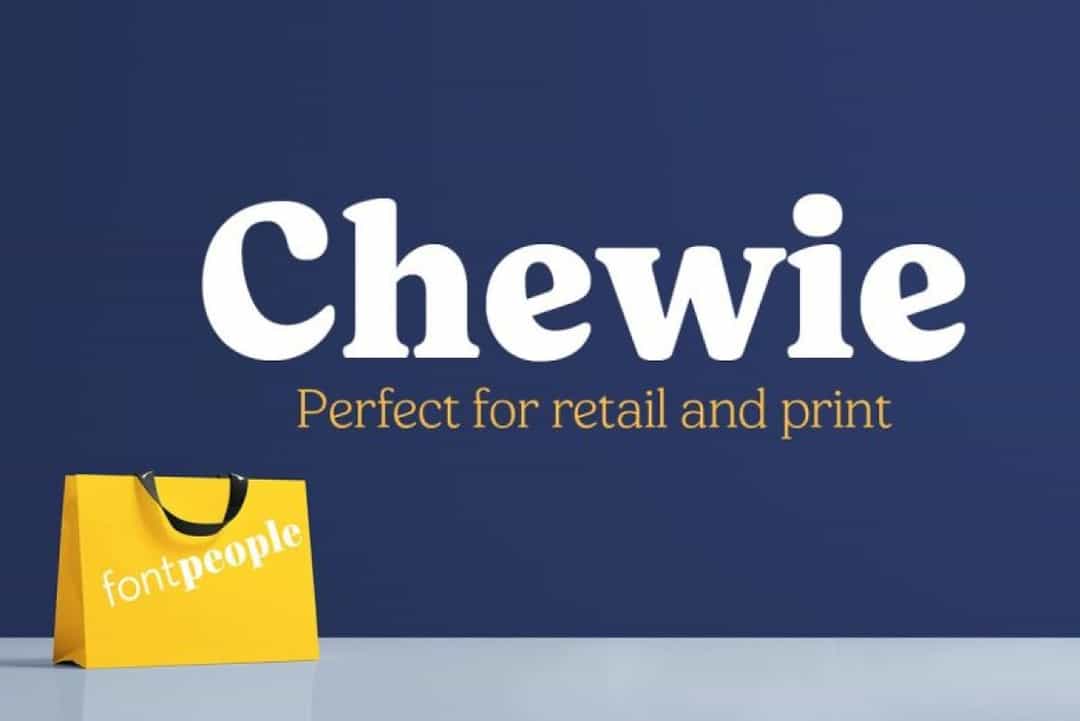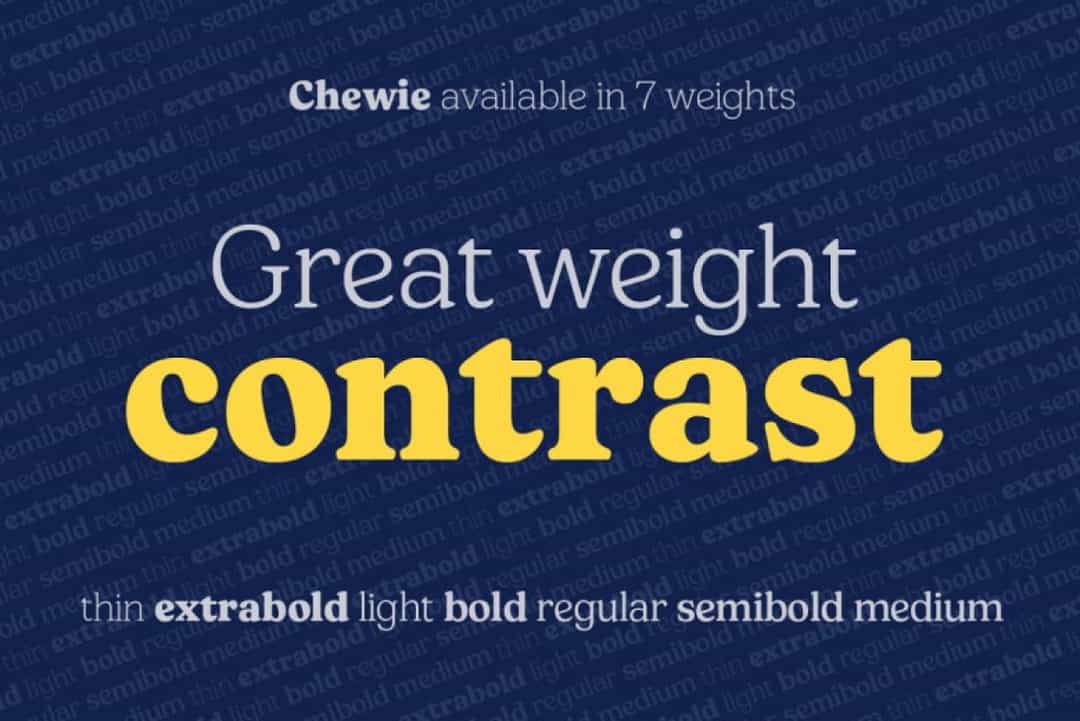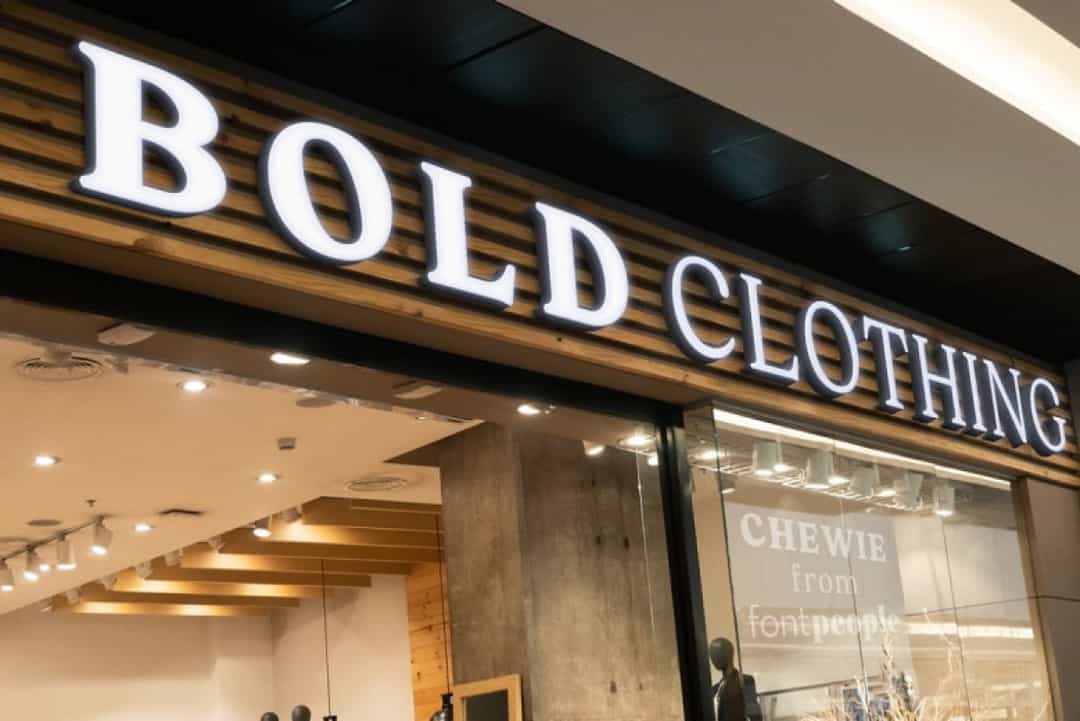
Chewie Serif Font combines elements from various popular 70s typefaces into one cohesive typeface, featuring soft forms from Cooper and fluidly angled strokes from Windsor in one distinctive font characterized by familiar yet contemporary tastes.